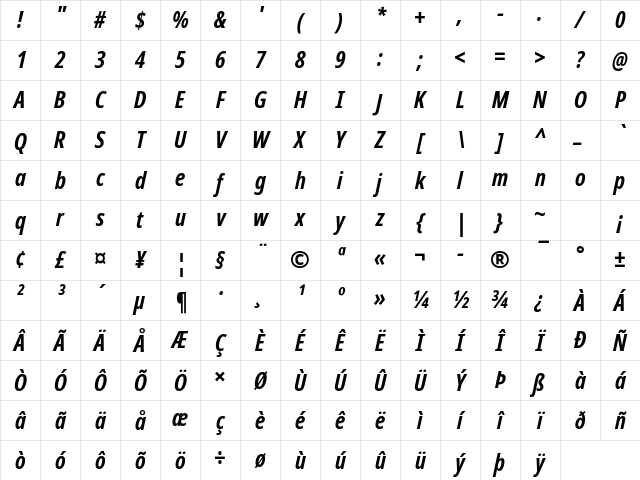
NotoSans NF Bold Italic
Foundry: Monotype Imaging Inc.
Designer: Monotype Design Team
Design Context for NotoSans NF
NotoSans NF is a composed and adaptable typeface that performs quietly and consistently across a wide range of design contexts. The slanted form adds forward momentum and visual energy. Its bold stroke weight gives it real presence on the page.
Pro Tip: Use NotoSans NF for emphasis, pull quotes, and subheadings where its slanted energy can add rhythm to the layout.